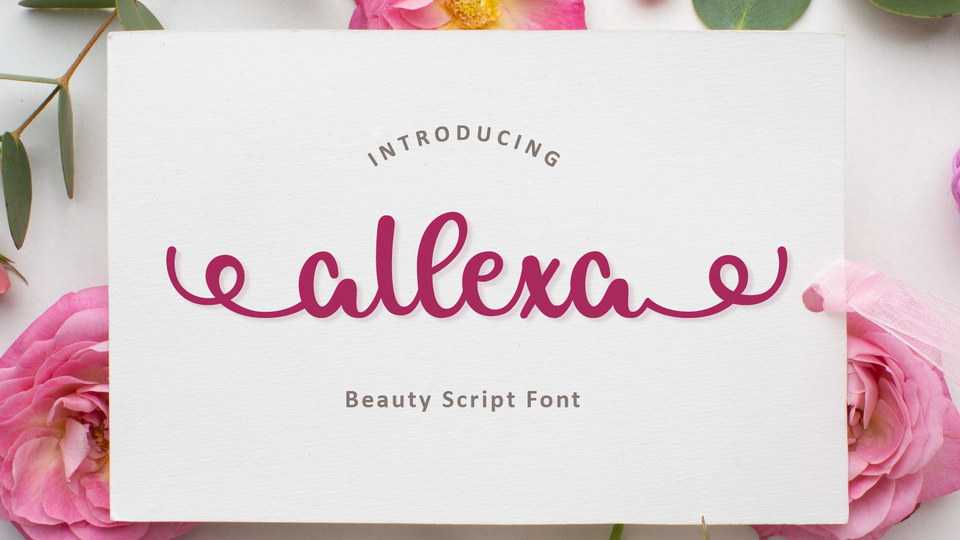
Download Allexa font, a unique and elegant handwritten typeface. Allexa looks beautiful on a variety of designs requiring a personalized style, such as wedding invitations, thank you cards, weddings, greeting cards, logos and so on.
Designer: Dewi Purwaningrum